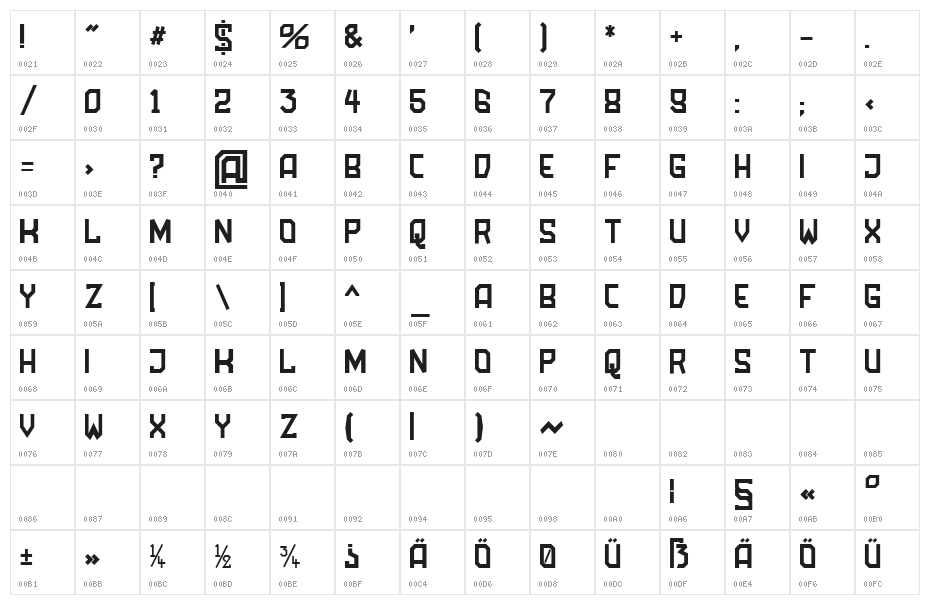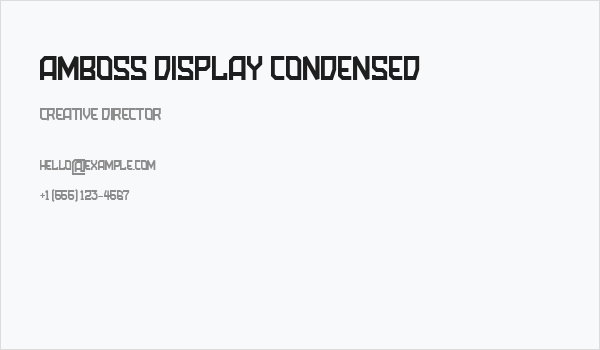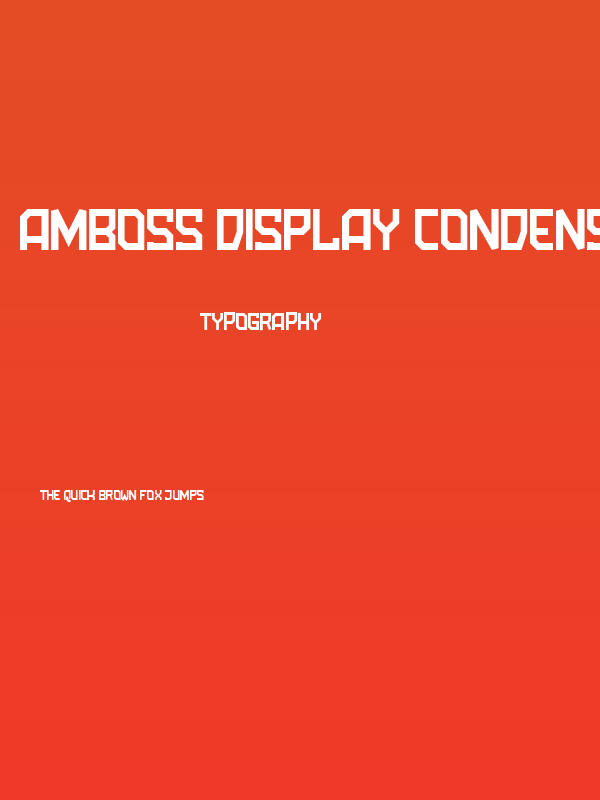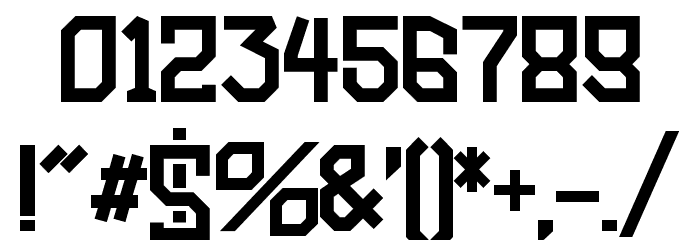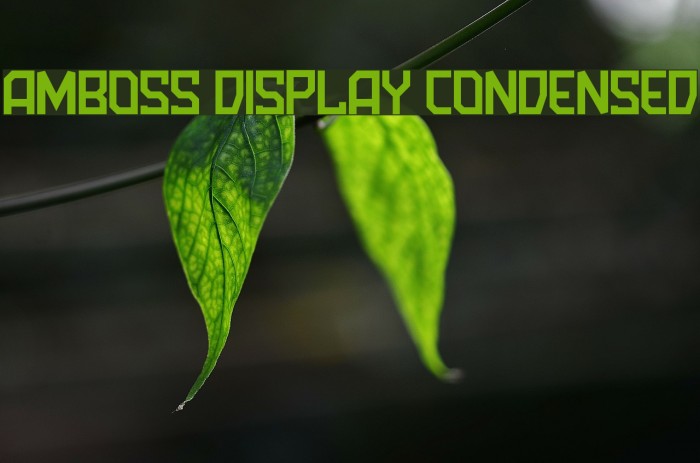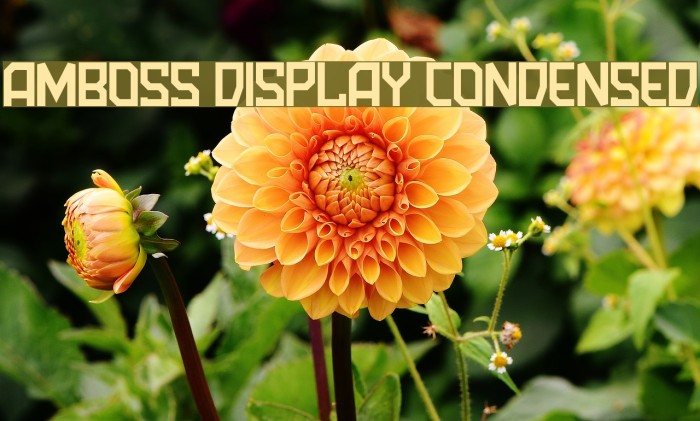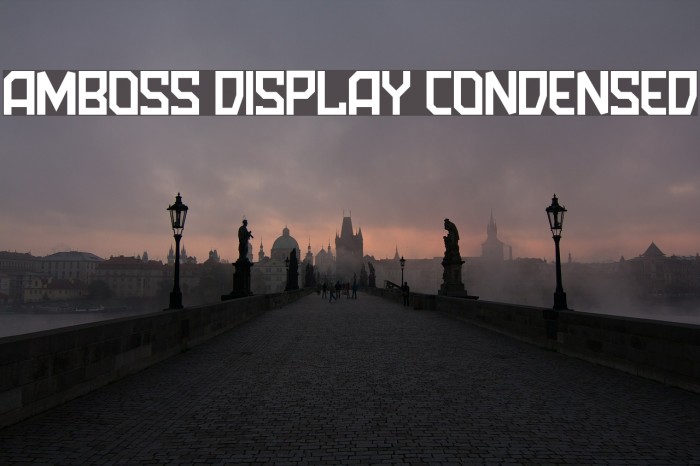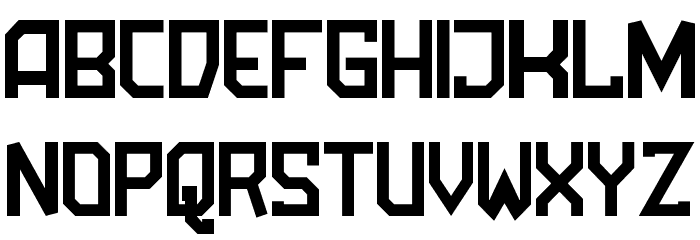
Amboss Display Condensed Font
Amboss Display Condensed Description
This font features a bold and geometric design with a condensed structure, making it highly suitable for impactful headlines and display purposes. The characters are crafted with sharp angles and straight lines, giving it a modern and industrial feel. The uppercase and lowercase letters maintain a consistent height, contributing to its uniform appearance. The numerals and special characters are designed to match the boldness of the alphabet, ensuring cohesive visual harmony across all elements. Its condensed width allows for efficient use of space, making it ideal for projects where space is at a premium.
| Proposed Projects | Perfect for posters, branding, advertisements, and any project requiring a strong visual impact. |